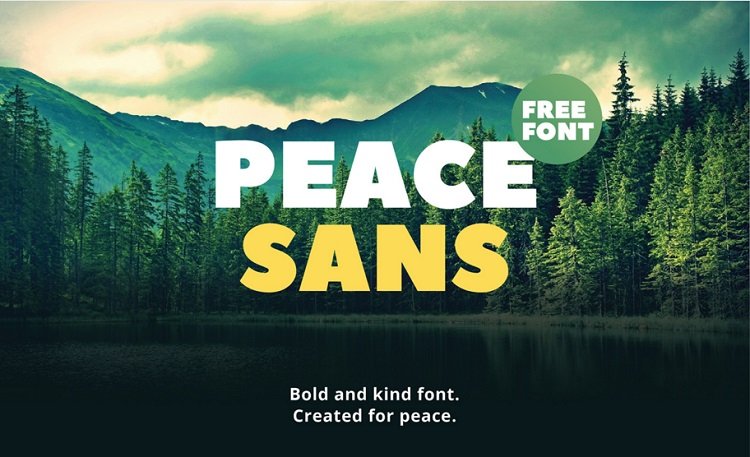
Peace Sans Font
Peace Sans is a free bold font made with love! It can make your typography more peacefull and kind. Use it any way, its absolutely free. It was created in the learning process in TypeType School. Peace!
Peace gives you a variety of ways to combine and arrange each font, allowing you to create striking & modern typographic designs.